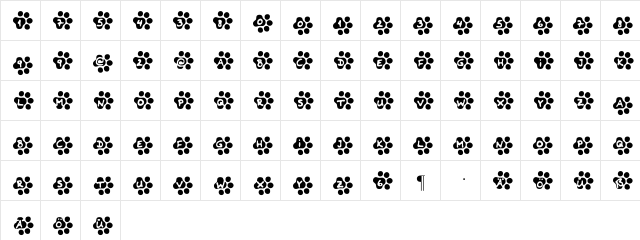
Catwalk Regular Free Font
Catwalk Regular
Catwalk Family
Complete Catwalk Regular glyph index. Displaying only characters natively supported by Catwalk Regular font.
Design Context for Catwalk
Catwalk is a composed and adaptable typeface that performs quietly and consistently across a wide range of design contexts.